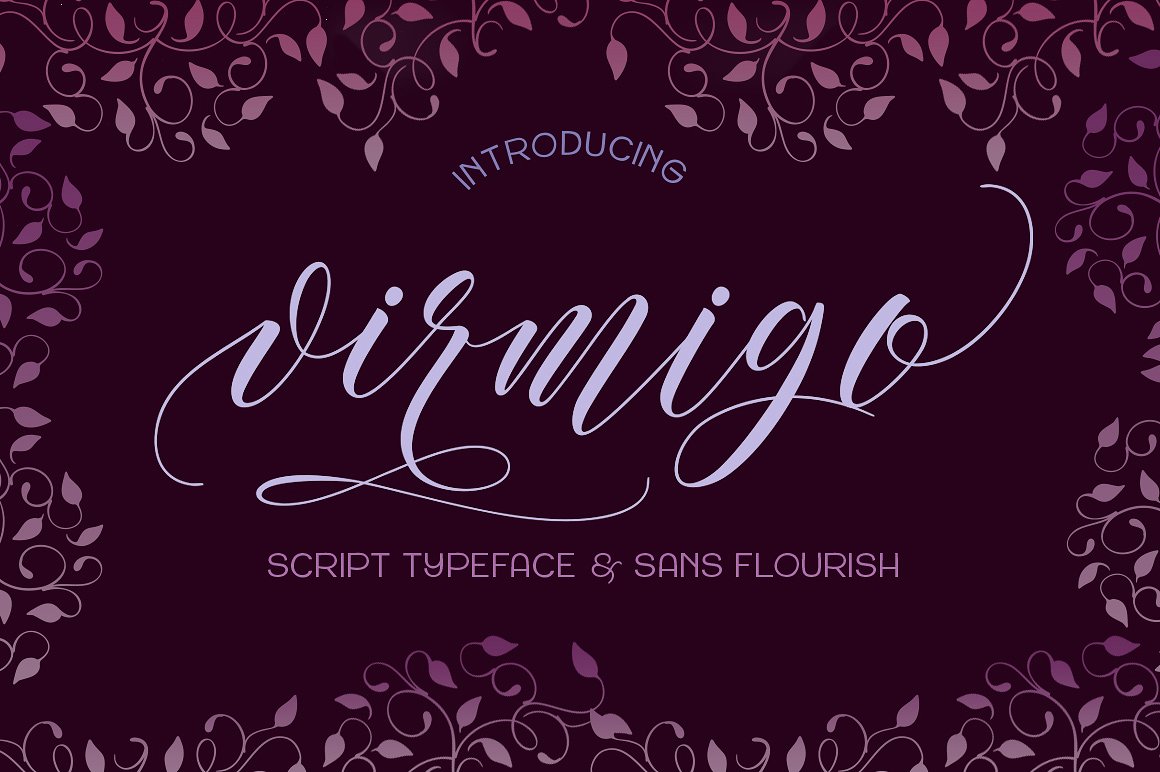
Virmigo Script Font
Virmigo Script , is a calligraphy wavy, modern and clasik, so soft, perfect for your next design, such as logos, printed quotes, invitations, cards, product packaging, headers and anything else about your imagination.